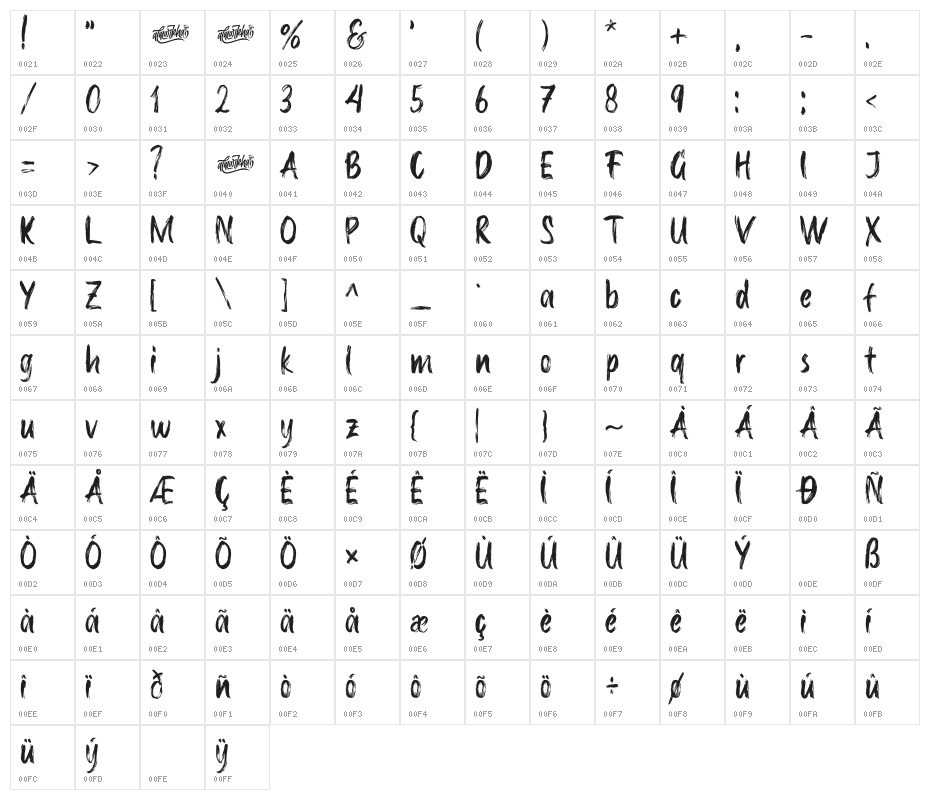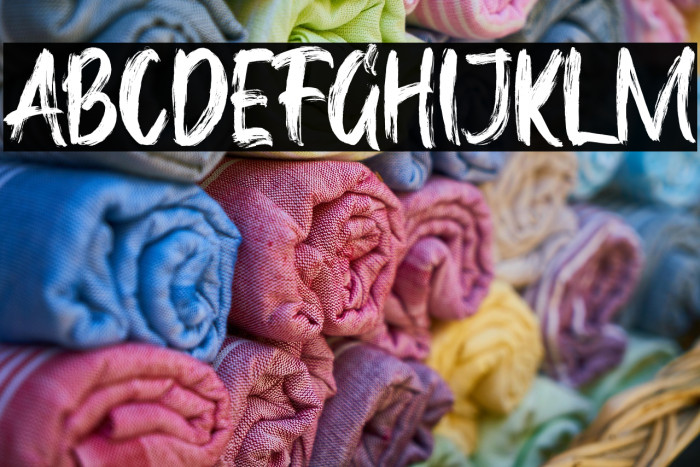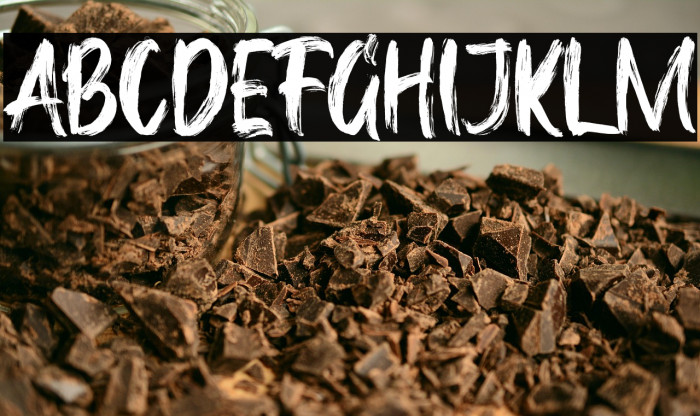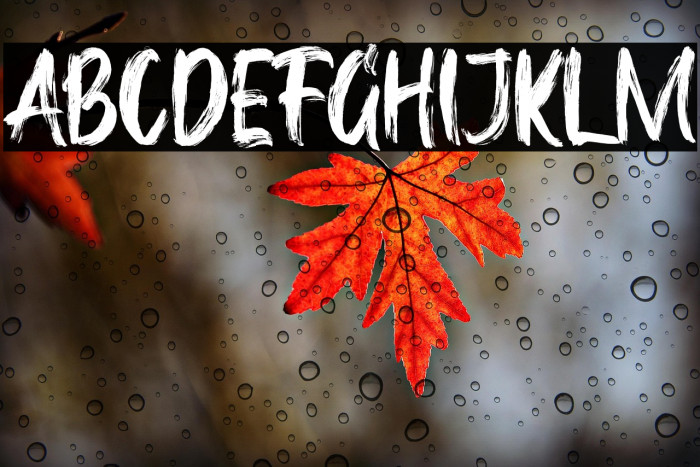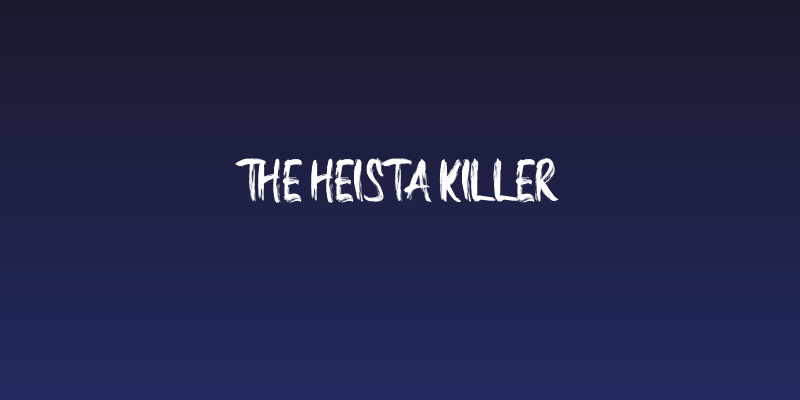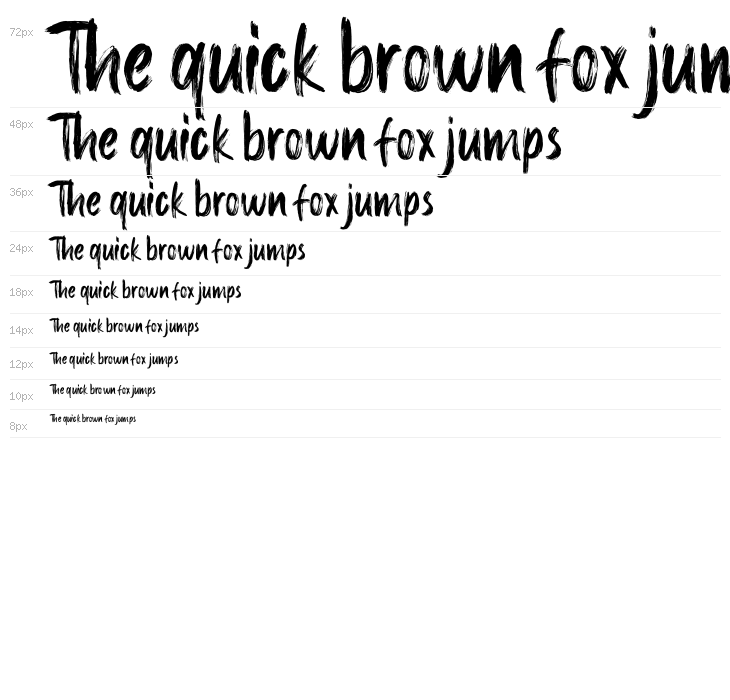
The Heista Killer Font
This font exudes a bold and expressive style, characterized by its brush-like strokes that give it a dynamic and energetic appearance. The letters are crafted with a sense of movement, as if painted with a swift, confident hand. Each character varies slightly in thickness, adding to the hand-drawn aesthetic. The uppercase and lowercase letters maintain a consistent style, with the uppercase being slightly more pronounced. Numbers and special characters follow the same artistic approach, ensuring a cohesive look across all elements. This font is ideal for projects that require a strong visual impact and a touch of artistic flair.
Overall StyleModern, Artistic
Proposed ProjectsIdeal for posters, album covers, branding, and artistic projects that require a bold statement.